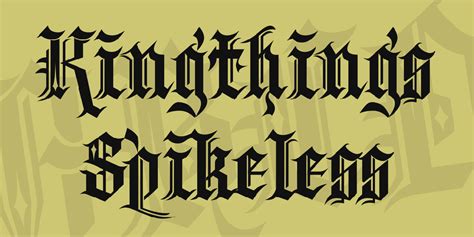
Kingthings Spikeless Font - Web download and install the kingthings spikeless font by king things fonts. Web download and install the kingthings spikeless free. Kingthings petrock à € by kingthings. Web kingthings spikeless font is a old english font and was created on aug 30, 1999. Web kingthings spikeless is a blackletter calligraphy font with no flourishes, designed by kingthings.